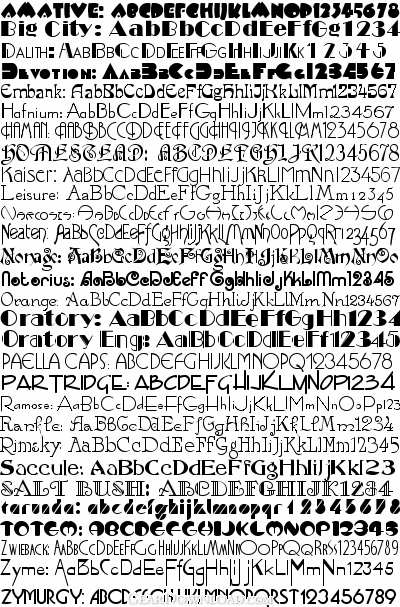
Art Deco Fonts - 10 Art Deco style OpenType fonts for Windows or the Mac
10 hand kerned OpenType Art Deco style scalable fonts for Windows Vista/XP/2003/2000 or the Mac. Includes: Big City, Dalith, Hafnium, Haman, Narcosis, Neaten, Orange, Ramose, Totem, and Zyme.
A classic revival of Art Deco fonts in OpenType format. The Art Deco period of type design celebrated the arrival of the machine age. Originally designed in the 1920s and '30s, these unique faces were characterized by bold outline, streamlined forms, and a sense of stylized geometry. They feature a forceful, yet elegant look. The collection includes 56 hand crafted faces. Each font contains the full ANSI character set, which covers most Western European languages.